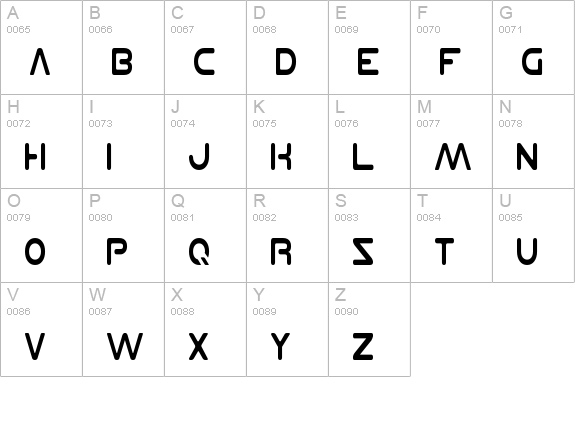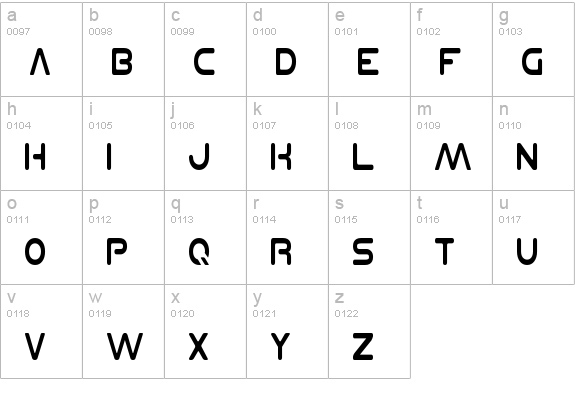
Planet N Condensed is a distinctive, condensed-width variant in the Planet typeface family \xE2\x80\x94 well suited to design and typography projects.
Planet N Condensed is a striking and modern font that effortlessly combines elegance with versatility. Its clean and streamlined design makes it the perfect choice for a wide range of projects, from logo designs and branding materials to website headers and print advertisements. With its condensed letterforms, Planet N Condensed exudes a sense of sophistication and professionalism, while still maintaining a friendly and approachable feel. The slightly rounded edges add a touch of softness, making it visually appealing and easy on the eyes. One of the best things about Planet N Condensed is that it is freely available to download at FontsMarket.com. This means that you can easily add this stunning font to your collection without any cost, making it an incredibly valuable asset for designers, artists, and creatives of all kinds. Whether you are working on a personal project or a professional one, Planet N Condensed is sure to elevate your designs and captivate your audience. Its versatility allows it to seamlessly adapt to various design styles and applications, ensuring that your message will always be delivered with impact and clarity. So why wait? Enhance your creative endeavors with the free download of Planet N Condensed at FontsMarket.com today and experience the power of this exceptional font for yourself.